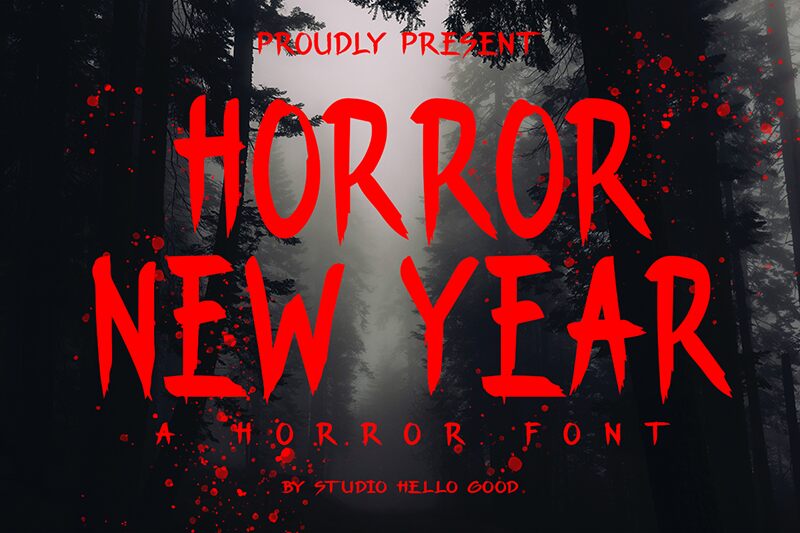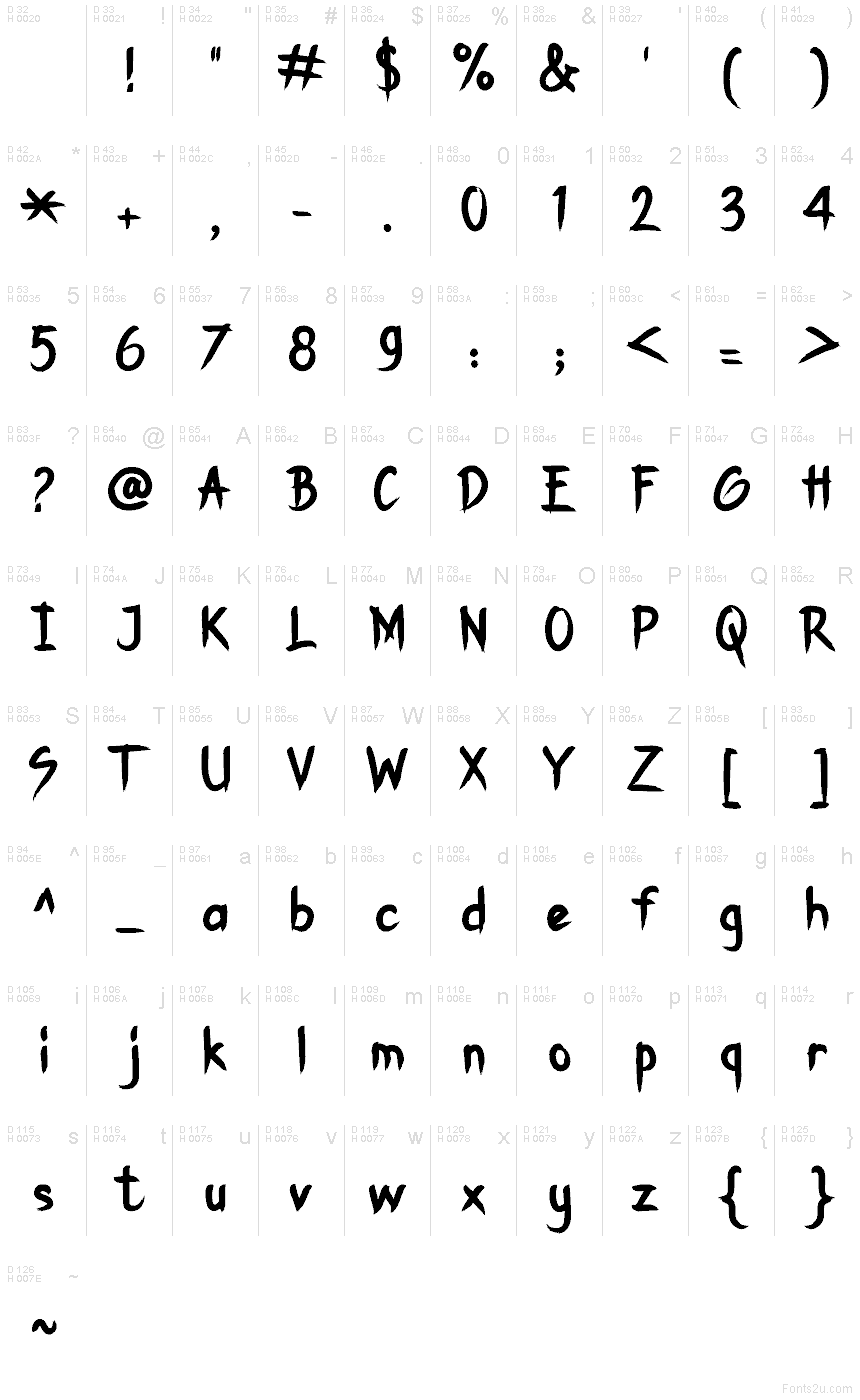
Horror New Year
Horror New Year font by Studio Hello Good is a free scary display typeface that turns letters into a jittery, ink-splattered scream. Its ragged strokes, slick drips, and slightly skewed rhythm feel like hand-painted warnings taped to a foggy window—messy in just the right way. The texture reads loud even at mid sizes, so headlines grab attention without extra effects.
Using Horror New Year, your titles snap to life on Halloween posters, haunted-house flyers, party invites, spooky countdown graphics, game splash screens, horror podcast covers, and candy or novelty packaging. This free font shines on short, punchy phrases; pair it with a clean, condensed sans for body copy and let the contrast do the lifting.